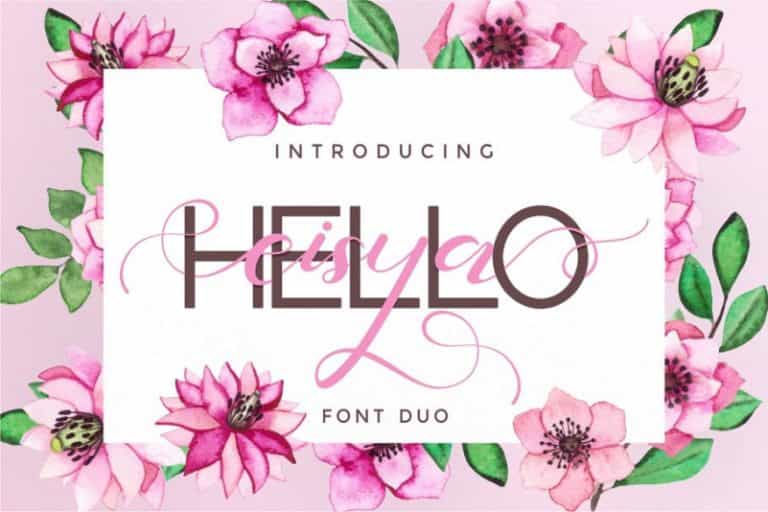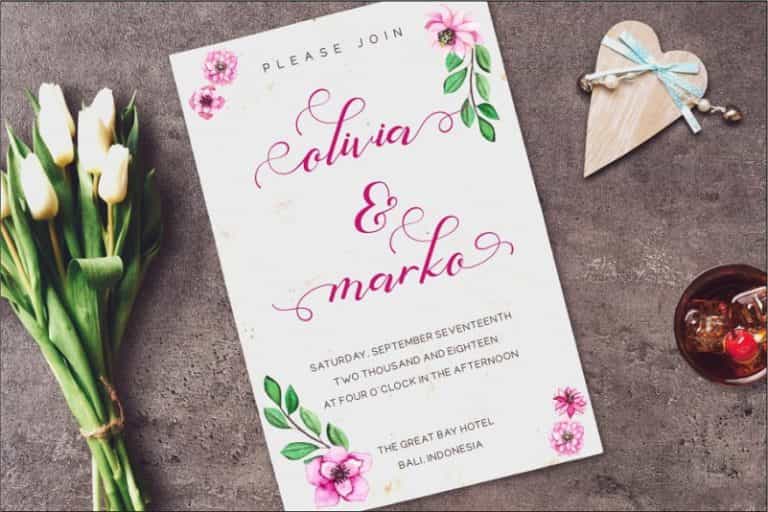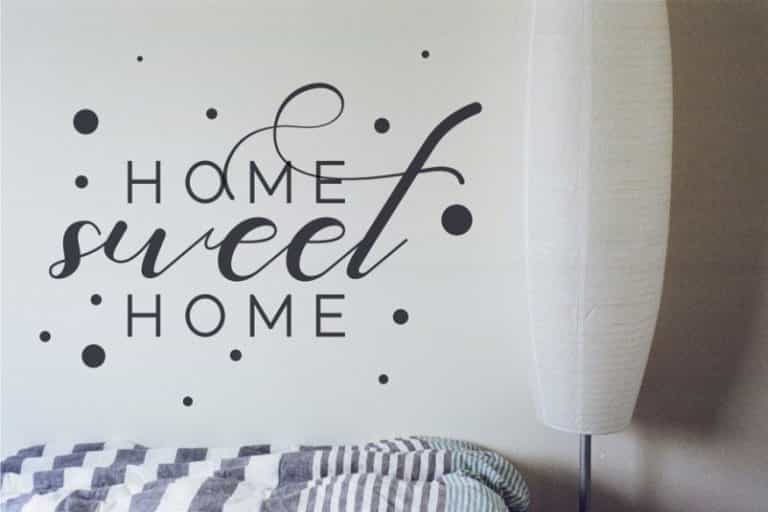
Discover Hello Eisya Font Duo, part of the Sans Serif Handwritten collection—a versatile and unique font perfect for adding a personal touch to your projects. Download it for free and enjoy crafting designs with style, from invitations to social media posts. This font is available exclusively for personal use, giving you the freedom to create without limits. Unlock your creativity with Hello Eisya Font Duo today!
Introducing Hello Eisya Font. Hello Eisya is a stunning modern sans and script typeface. A good mate can be a perfect example of this. Hello Eisya, this font is best for branding, wedding invitation and card, elegant logo, poster design, packaging of products or items that will be used as gifts in the party events.